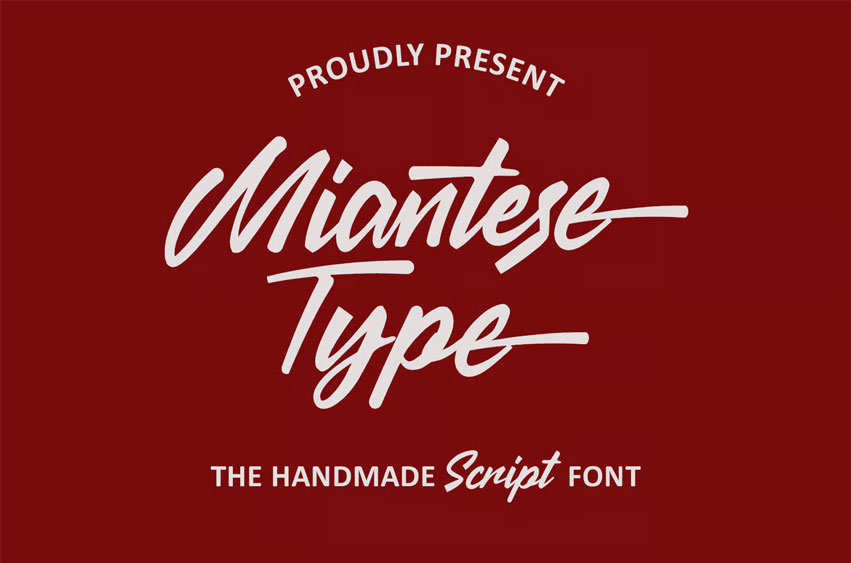
Miantese Font is a handmade script display font that features bold strokes and fun characters, along with various alternates and ligatures to enhance your creative projects. It supports over 100 languages, making it a versatile choice.
Miantese Font is ideal for logo design, social media graphics, movie titles, book covers, and both short and long text. It also pairs well with sans-serif or serif fonts for secondary text. Create stunning designs with Miantese Font!